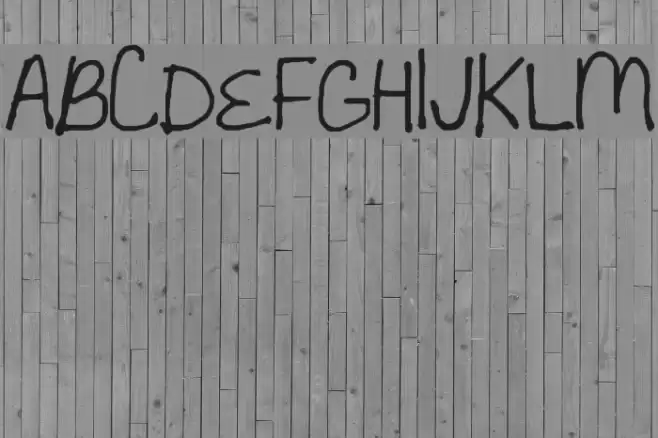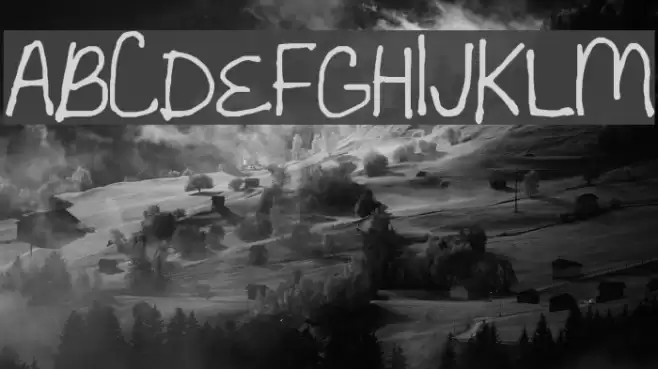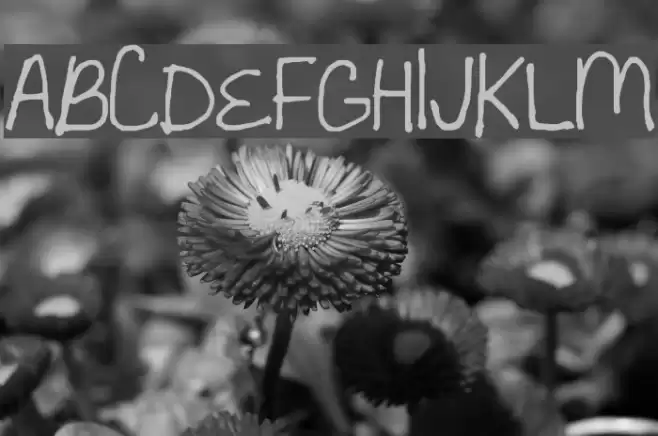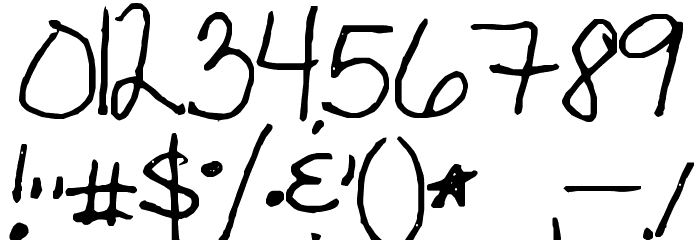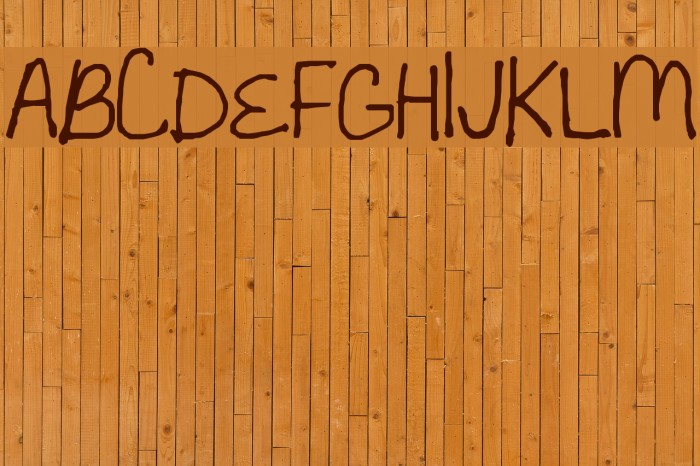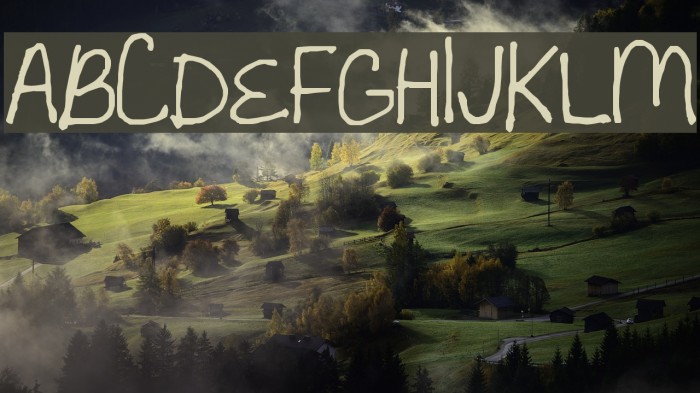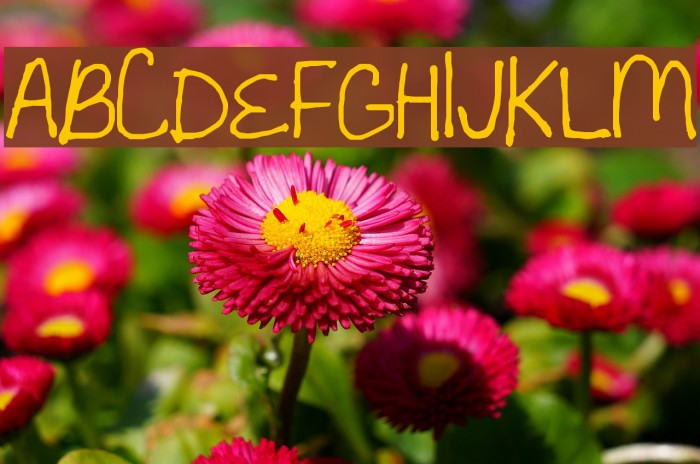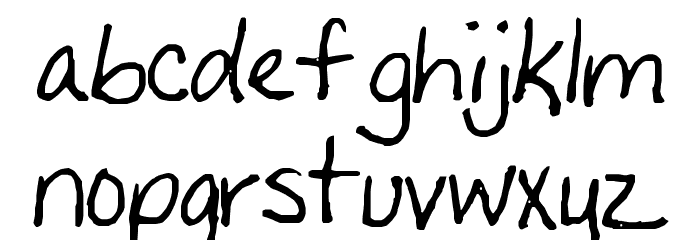
Sandyshand Font
Sandyshand Description
This font features a playful, handwritten style with a casual and informal appearance. The characters are unevenly weighted, giving a dynamic and lively feel. The strokes are irregular, mimicking the natural flow of handwriting, which adds a personal touch. The uppercase and lowercase letters maintain a consistent style, with slightly exaggerated curves and loops. Numbers and special characters follow the same whimsical design, making the font versatile for creative projects. The overall look is approachable and friendly, suitable for designs that require a human touch.
A playful, handwritten font with a casual and lively appearance from Uncategorized fonts.
- Proposed Projects: Ideal for greeting cards, children's books, personal blogs, and creative branding.
- Overall Style: Casual
- Use Case: Headlines, Logos, Informal text